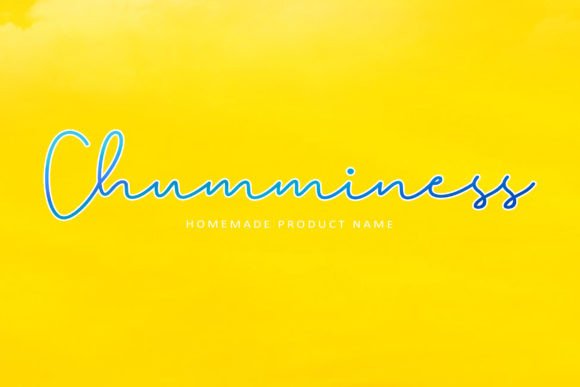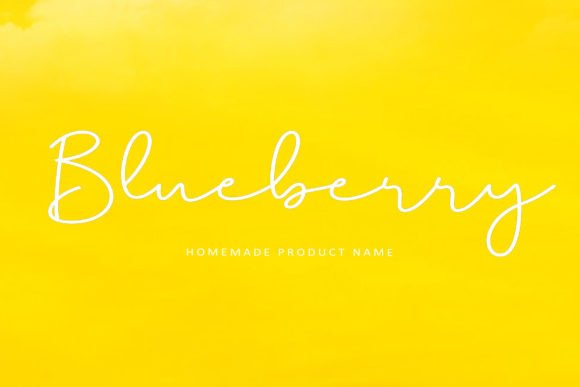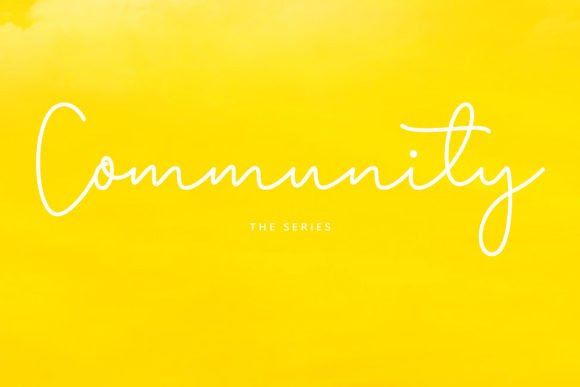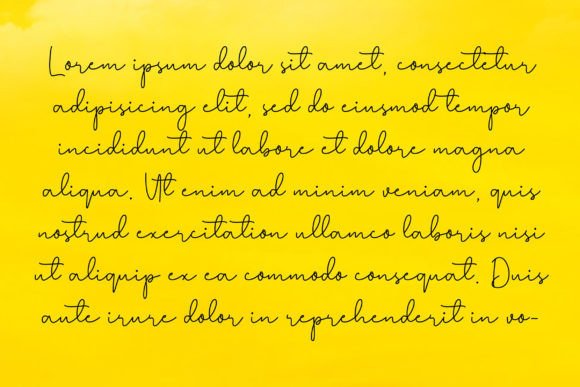
Bananas Font: The Elegant Script Font for Stunning Designs
Are you a designer or crafter looking for a unique and timeless font to elevate your designs? Look no further than Bananas Font, an elegant script font that is sure to capture your heart. With its distinctive and sophisticated style, Bananas Font is the perfect choice for creating spectacular designs that stand out from the crowd.
What is Bananas Font?
Bananas Font is a beautifully crafted script font that boasts a classic and elegant look. Its unique style is characterized by flowing lines, intricate details, and a touch of sophistication. This font is perfect for designers and crafters who want to add a touch of luxury and refinement to their designs.
Key Features of Bananas Font
- Unique and Timeless Style: Bananas Font has a completely different and timeless style that sets it apart from other fonts. Its classic look ensures that your designs will never go out of style.
- Elegant and Sophisticated: This font exudes elegance and sophistication, making it perfect for high-end designs, branding, and marketing materials.
- Versatile: Bananas Font can be used for a wide range of design projects, from wedding invitations and stationery to logos, packaging, and digital media.
- Easy to Read: Despite its ornate style, Bananas Font is easy to read, making it perfect for body text and headlines.
Uses of Bananas Font
Bananas Font is a versatile font that can be used for a variety of design projects, including:
- Wedding Invitations and Stationery: Add a touch of elegance and sophistication to your wedding invitations, stationery, and other paper goods.
- Branding and Logo Design: Create a lasting impression with Bananas Font, perfect for logos, business cards, and letterheads.
- Packaging Design: Elevate your packaging design with Bananas Font, ideal for product labels, packaging, and point-of-sale displays.
- Digital Media: Use Bananas Font for digital media, such as social media graphics, blog headers, and email newsletters.
Tips for Using Bananas Font
To get the most out of Bananas Font, here are some tips to keep in mind:
- Pair with a Simple Font: Pair Bananas Font with a simple font to create a striking contrast and add visual interest to your design.
- Use for Headlines and Titles: Use Bananas Font for headlines and titles to add a touch of elegance and sophistication.
In conclusion, Bananas Font is an elegant script font that is sure to capture your heart. With its unique and timeless style, versatility, and ease of use, it’s the perfect choice for designers and crafters looking to create spectacular designs. Whether you’re working on a wedding invitation, branding project, or digital media, Bananas Font is sure to elevate your design to the next level.